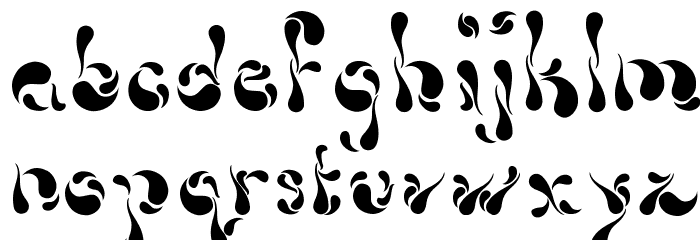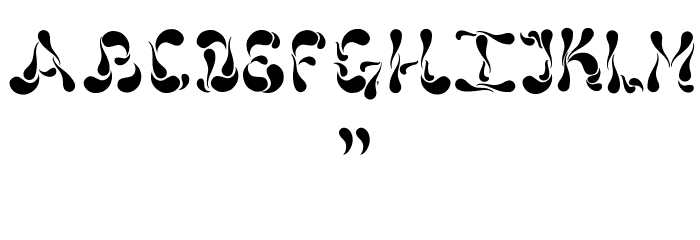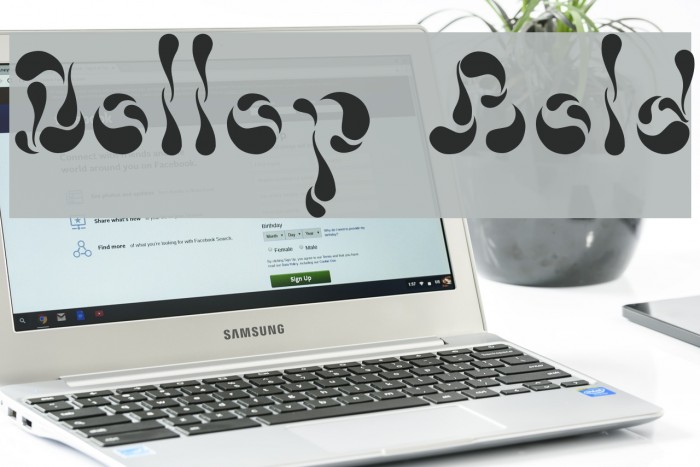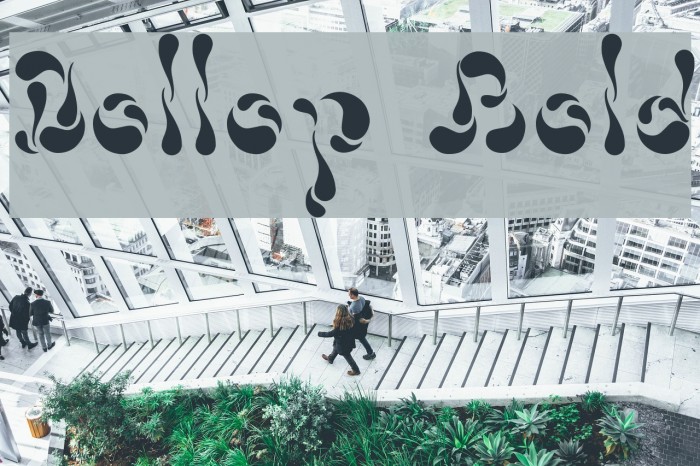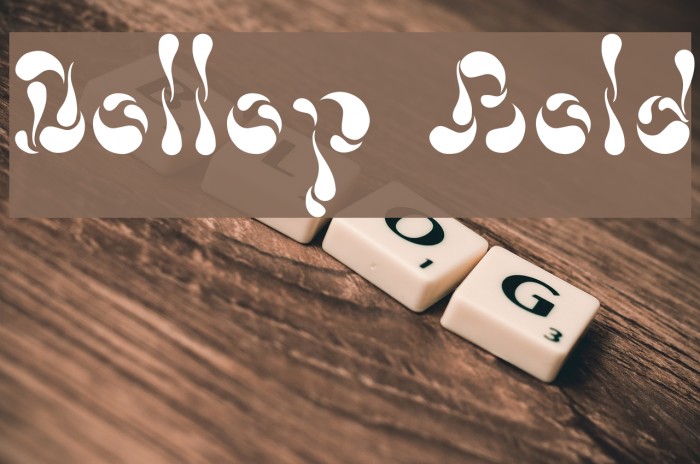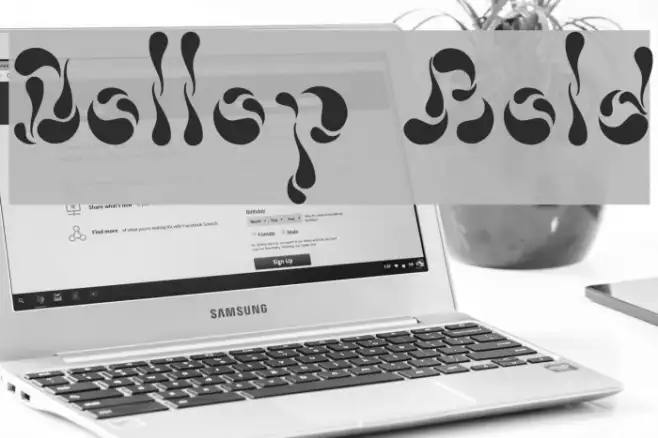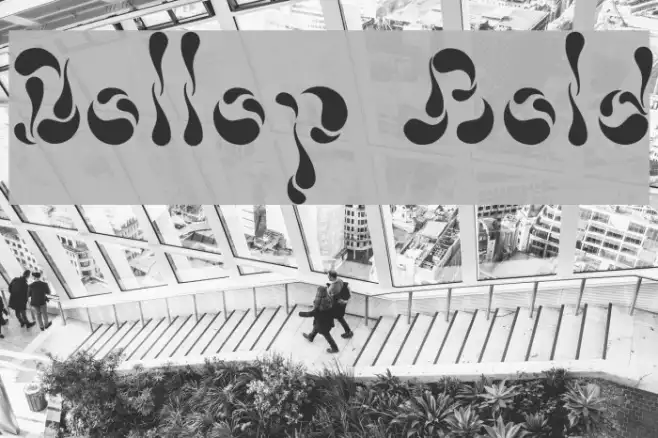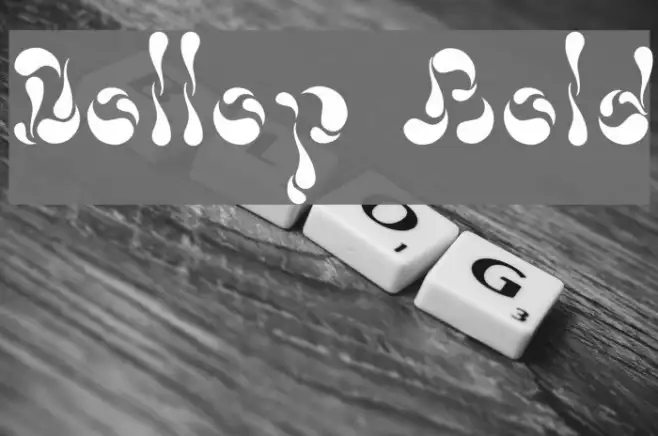
Dollop Bold Font
This font features a highly decorative and artistic style, characterized by its bold, fluid shapes that resemble droplets or splashes of ink. The letters have a playful and whimsical appearance, with exaggerated curves and varying stroke thicknesses that create a dynamic and eye-catching effect. The unique design elements make each character stand out, providing a sense of movement and creativity. This font is ideal for projects that require a distinctive and artistic touch, capturing attention with its bold and imaginative forms.
A bold, decorative font with fluid, droplet-like shapes and dynamic curves.
- Proposed Projects: Ideal for artistic posters, creative branding, unique invitations, and eye-catching headlines.
- Use Case: Headlines, Logos, Artistic projects